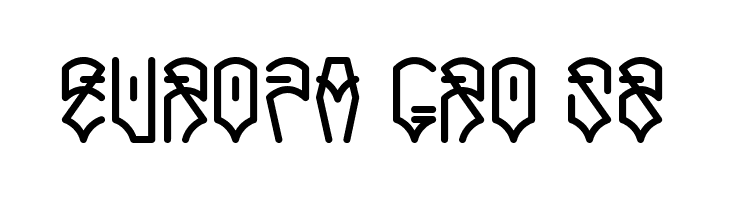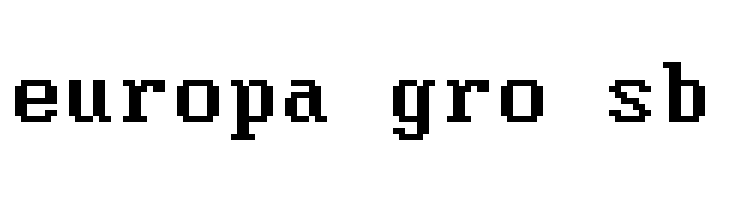
( Fonts by Alejandro O'Connor )
A modern, geometric font with bold, angular lines and a futuristic style.
A pixelated, retro-style font inspired by early computer systems.